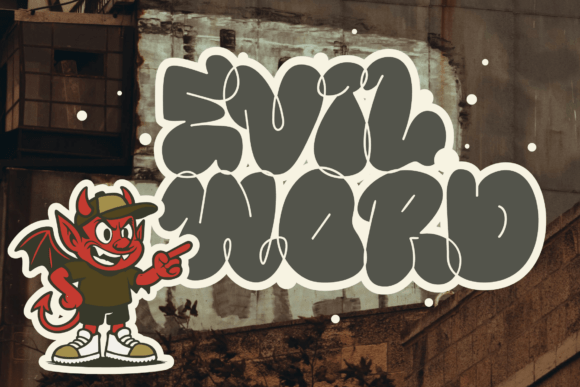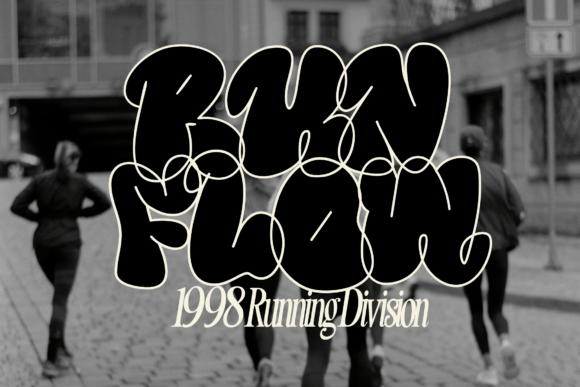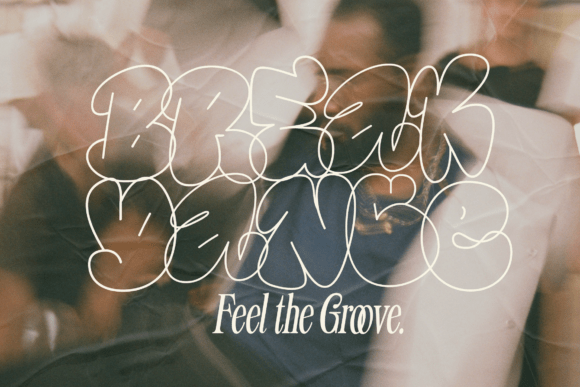
Introduction to Rune Font
Do you remember that moment when you stumbled upon a street art piece that left you breathless? The vibrant colors, the intricate details, and the raw energy that seemed to jump off the wall? For designers, that’s what the Rune Font embodies – the perfect blend of boldness, rebellion, and creativity that can elevate any design project.
Whether you’re working on a high-quality design resource or a creative project that requires a unique touch, Rune Font is here to deliver. This versatile font is designed with layered flexibility, allowing you to add depth and texture to your artwork. With a base and outline layer, you can achieve a transparent background or a bold, eye-catching look, depending on your design needs.
As a valuable resource for designers, Rune Font offers a free download that’s perfect for crafting edgy visuals for your next creative project. Its raw, street-smart aesthetic is impossible to ignore, making it a must-have in your design arsenal.
Key Features of Rune Font
- High-quality design resource with a unique and intricate design, perfect for creative projects.
- Comes in a transparent background option, allowing for seamless integration into various designs.
- Features a high-resolution design, ideal for printing and large-scale applications.
- Includes a comprehensive character set, covering a wide range of languages and characters.
- Perfect for designers, artists, and writers looking for a unique and high-quality font for their creative project.
Honest Review: Rune Font
As a designer, I’m always on the lookout for unique and high-quality design resources to elevate my creative projects. Recently, I stumbled upon Rune Font, and I’m excited to share my thoughts on this intriguing font.
- Unique and intricate design: Rune Font boasts a distinctive and complex design that’s sure to add a touch of mystique to any project.
- High-quality glyphs: The font’s glyphs are crisp and clear, making it perfect for digital use.
- Transparency issues: I found that the transparent background of some glyphs can be a bit finicky, requiring some tweaking to get right.
- Limited character set: While the font includes a decent range of characters, it’s not as comprehensive as some other fonts on the market.
Overall, I’m impressed with Rune Font’s unique design and high-quality glyphs. While it’s not perfect, it’s a great addition to any designer’s toolkit, especially for creative projects that require a touch of mystique. With a little patience and tweaking, you can get the most out of this free design resource.
Rune Font
Rune Font is a unique and creative design resource that can add an extra layer of depth to your project. With a transparent background and high quality design, it’s perfect for any creative project.
Tips for Getting the Most Out of Rune Font
To get the most out of Rune Font, be sure to use it in conjunction with other design elements that complement its unique style. Experiment with different colors and layouts to find the perfect look for your project.
Rune Font is perfect for use in creative projects such as logos, posters, and social media graphics. It’s also great for use in presentations and documents where a unique and eye-catching font is desired.